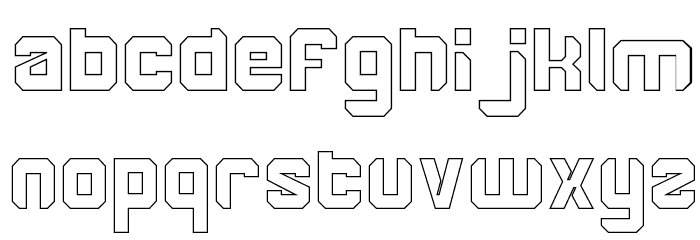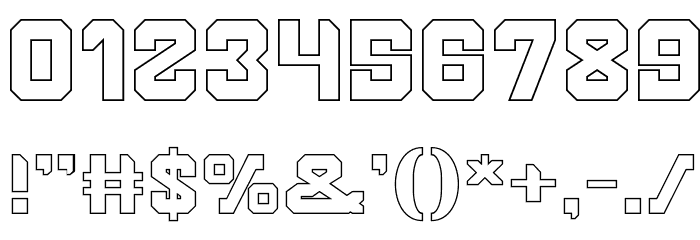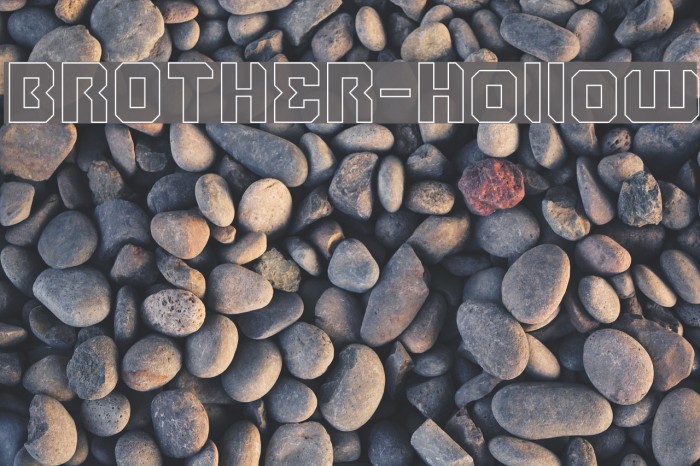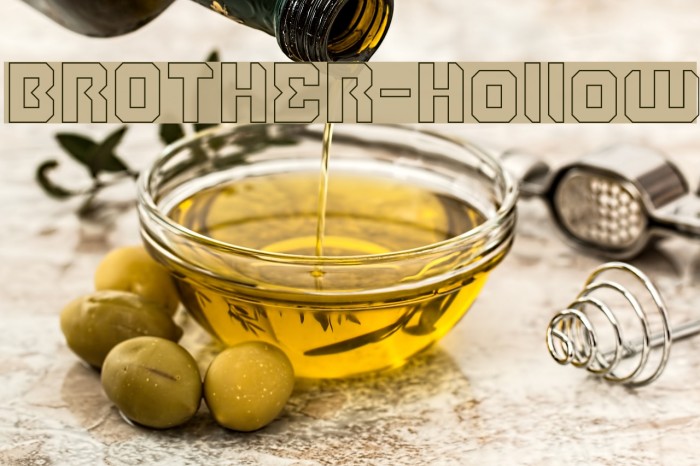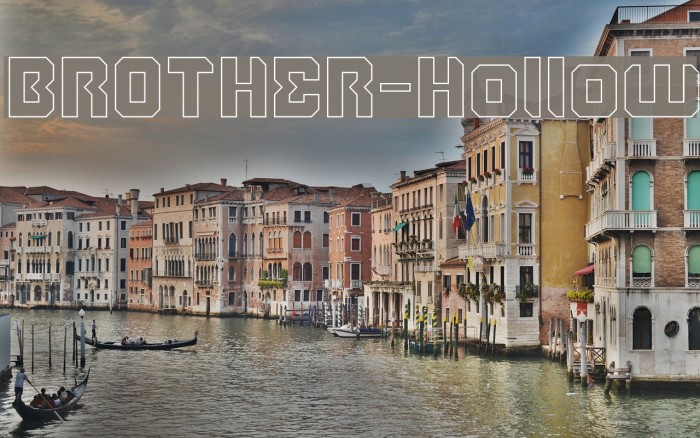
BROTHER-Hollow Font
This font features a bold, geometric design with a hollow interior, giving it a distinct and modern appearance. The characters are constructed with sharp angles and straight lines, creating a futuristic and industrial feel. The uppercase and lowercase letters maintain a consistent style, with the lowercase being slightly more compact. Numbers and special characters follow the same design principles, ensuring uniformity across all glyphs. The hollow nature of the font adds a unique dimension, making it stand out in various design contexts.
A bold, geometric font with a hollow interior and futuristic style.
- Proposed Projects: Ideal for projects that require a modern and edgy look, such as tech branding, futuristic posters, video game titles, and sci-fi themed designs.